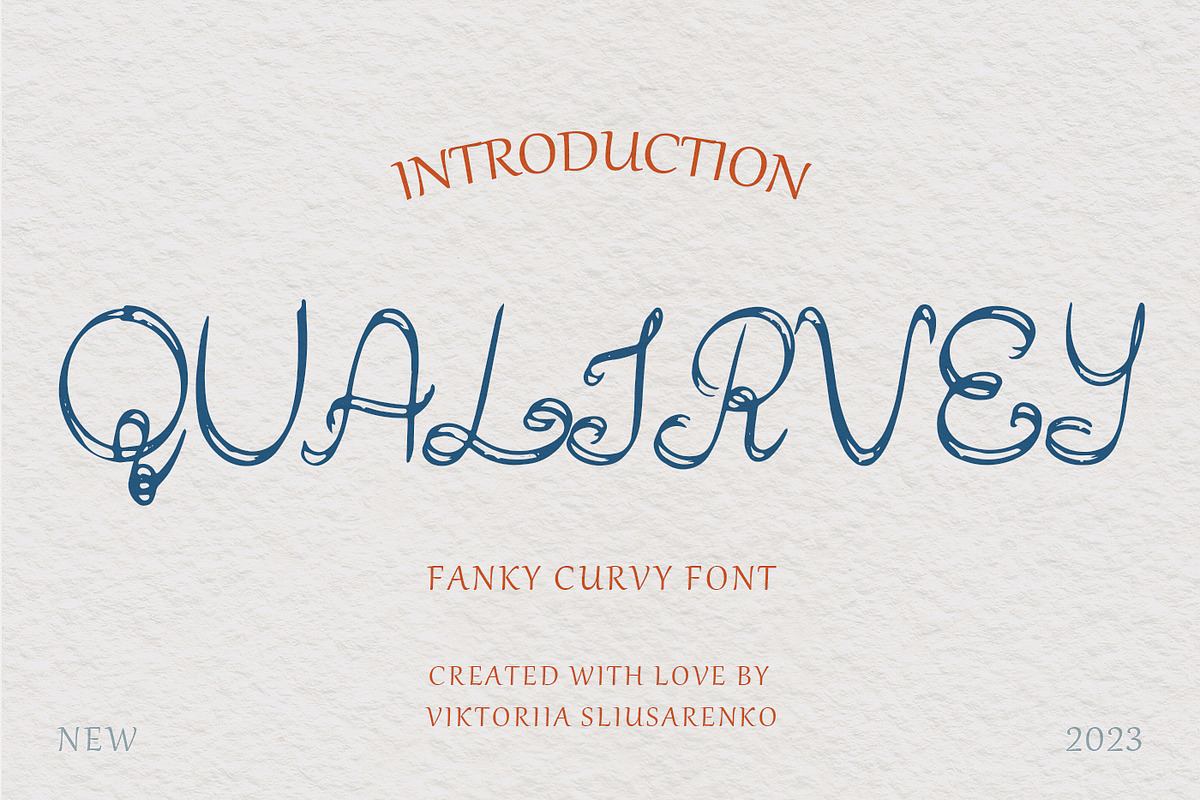
Please note, to use this font for commercial purposes, you must purchase the full version. QUALIRVEY is a playful and funky curvy font that adds a unique and creative touch to your designs. With its bold, rounded letterforms and lively character, this font is perfect for logos, posters, branding, and creative projects. Whether you're working on a fun event flyer, a quirky logo, or a whimsical brand, QUALIRVEY brings a joyful and distinctive feel to your work. Test it out and enjoy free download access for personal use. Experience the fun and energetic style of QUALIRVEY Fanky Curvy Font Free Download before purchasing the commercial license. Add a fun and lively vibe to your designs with QUALIRVEY.